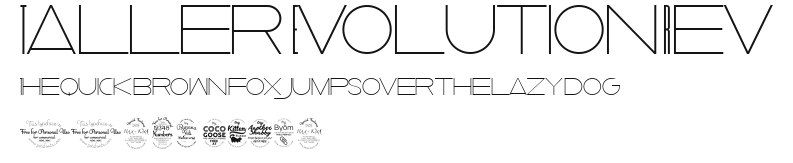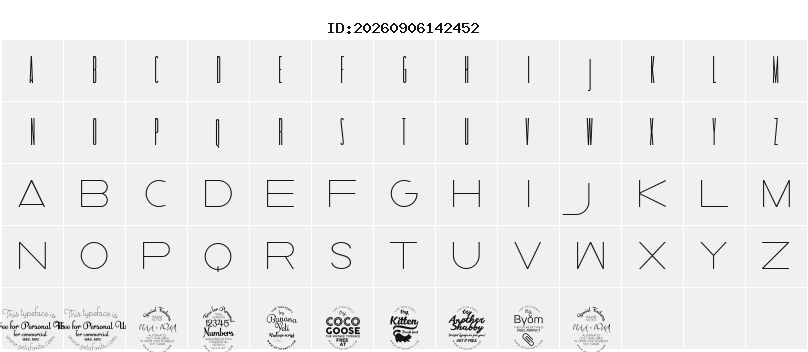
• Font Name: Taller Evolution Rev
• Font ID: StudioKmzero: Taller Evolution Rev: 2010
• Full Font Name: Taller Evolution Rev
• PostScript Name: TallerEvolutionRev
• Designer: Cosimo Lorenzo Pancini, Francesco Canovaro
• Manufacturer: Studio Kmzero
About Taller Evolution Rev.ttf
Taller Evolution Rev.ttf is a modern, elegant sans-serif font designed for ultimate readability and visual harmony. Perfect for branding, headlines, web design, and print materials.